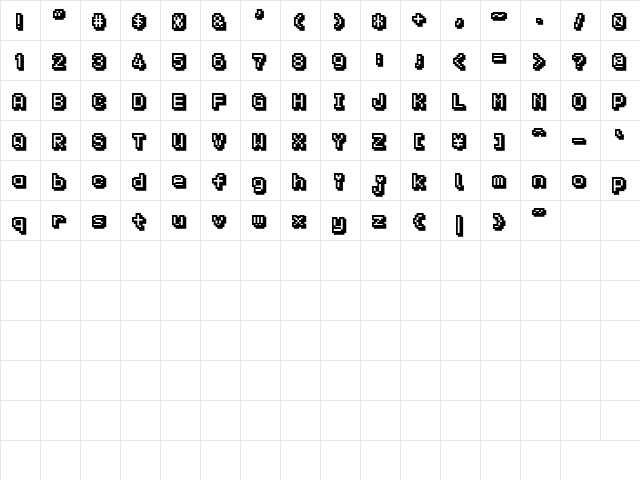
KS-PetitHeartOutline10_3 Regular
Design Context for KS-PetitHeartOutline10_3 Typeface
KS-PetitHeartOutline10_3 brings ornamental detail and strong personality to headlines and identities, where visual impact matters more than quiet functionality.
Font Pairing: Pair with a clean neutral sans-serif for body copy to let KS-PetitHeartOutline10_3's character lead without overwhelming the composition.
Pro Tip: Use KS-PetitHeartOutline10_3 exclusively at display sizes — it was designed to be seen, not read at length. Let a neutral companion handle body copy.